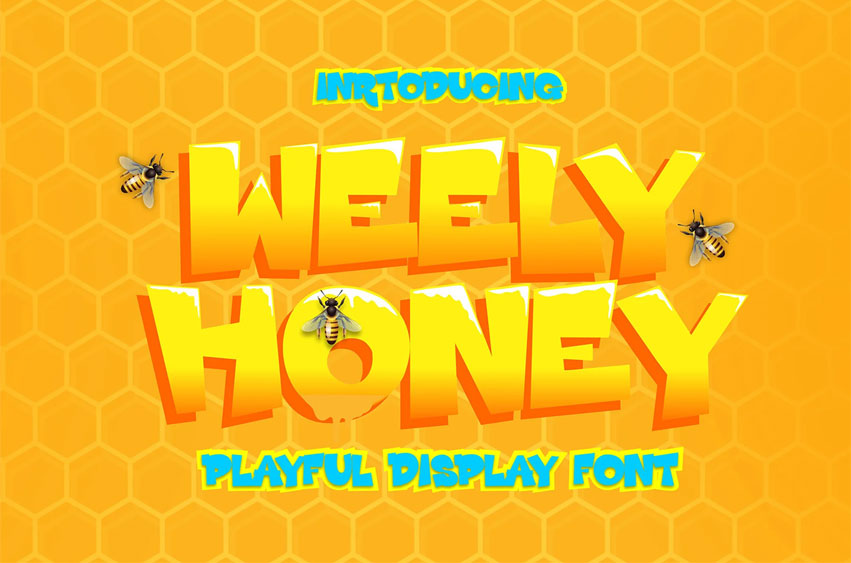
Weely Honey Font
Weely Honey Font is a funny, bold and cute display font with a unique twist.
Get inspired by its unique feel, and turn to add a lovely charm to any crafts project.